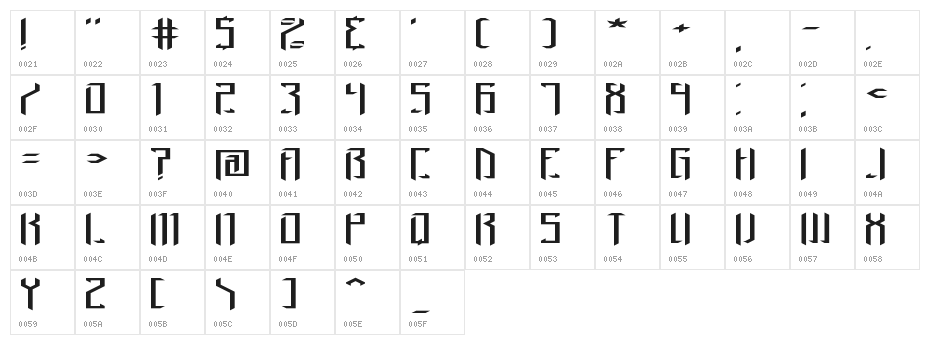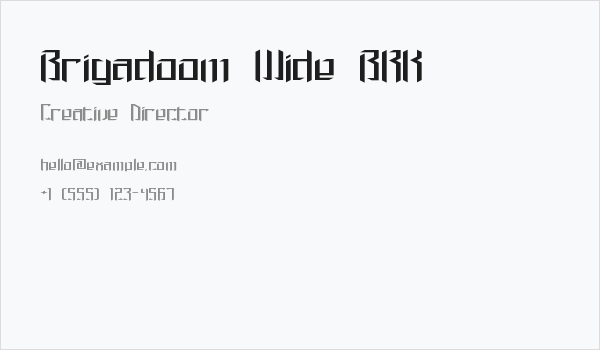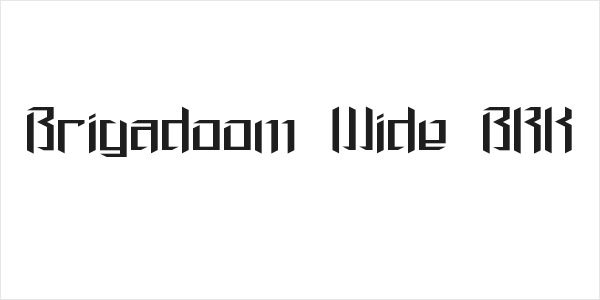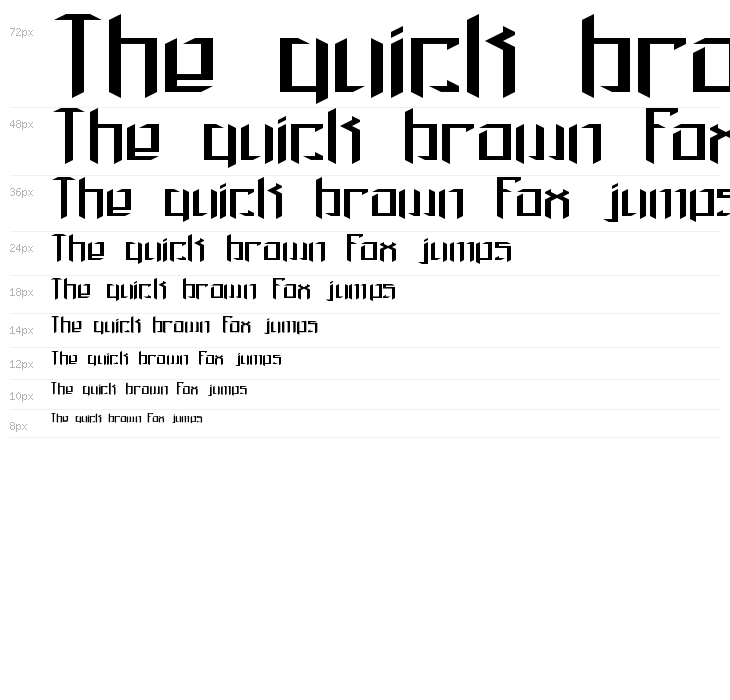
Brigadoom Wide BRK Font
Brigadoom Wide BRK Description
This font features a bold, geometric design with sharp angles and a futuristic aesthetic. The characters are wide and have a distinct, edgy appearance, making them stand out prominently. The uppercase and lowercase letters maintain a consistent style, with angular cuts and a blocky structure that gives the font a unique, modern look. The numbers and special characters follow the same design principles, ensuring a cohesive appearance across all glyphs. This font's striking style is ideal for projects that require a strong visual impact.
| Proposed Projects | Ideal for sci-fi themed designs, video game titles, posters, and branding that requires a modern, edgy look. |